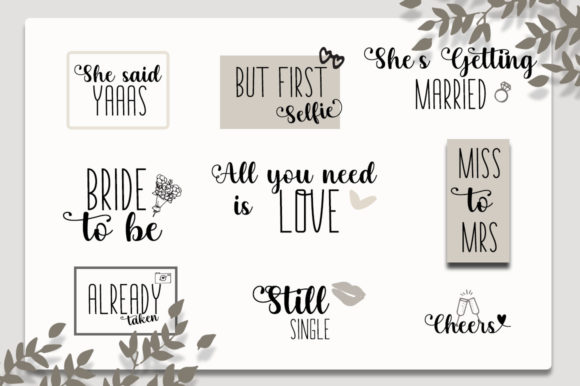
Introduction to Romance Jollypetter Font Font
Fonts play a crucial role in design, and the Romance Jollypetter Font font is a typeface that brings both character and versatility to any project. Whether you’re working on a branding project, a website, or a print design, the Romance Jollypetter Font font offers a unique style that can elevate your work.
Romance Jollypetter is an elegant and dainty duo font (handwritten and sans serif), that features sweet and delicate swashes.
This original look will appeal to a wide range of crafty ideas, from letterheads and titles, to stationery .
Key Features of Romance Jollypetter Font Font
• ✅ High-quality typeface designed for professional use
• ✅ Includes a wide range of glyphs and characters
• ✅ Ideal for logos, branding, websites, and print
Why Choose Romance Jollypetter Font Font?
The Romance Jollypetter Font font is more than just a typeface – it’s a design tool that helps you communicate your message with style and clarity. Its unique character set and versatile design make it suitable for a wide range of applications, from elegant invitations to bold headlines.
With its carefully crafted letterforms and balanced proportions, the Romance Jollypetter Font font ensures readability and visual appeal across all mediums.
What makes Romance Jollypetter Font font special?
The Romance Jollypetter Font font stands out with its unique design, exceptional readability, and versatility across various design applications.